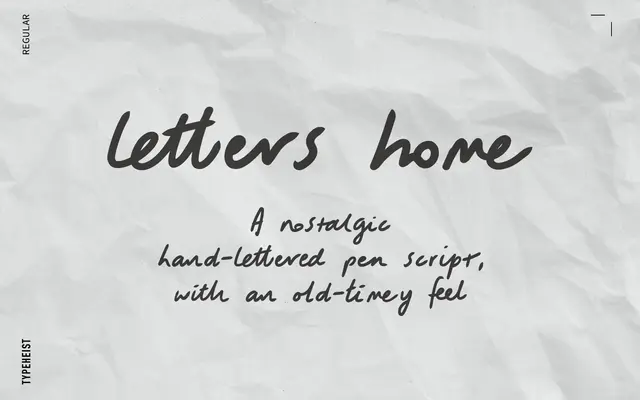
Peachy Font Bundle
A bundle of four casual handwriting fonts from Typeheist, sold together at a discount with ligature support.
Four handcrafted casual handwriting fonts sold as a discounted bundle exclusive to the Typeheist website. Each font includes a range of glyphs and ligatures suited to informal, decorative use. The bundle includes free future updates and is available with desktop and web licensing options.
The bundle consists of casual handwriting fonts described as cute and handcrafted, placing them firmly in the script/casual handwriting category.